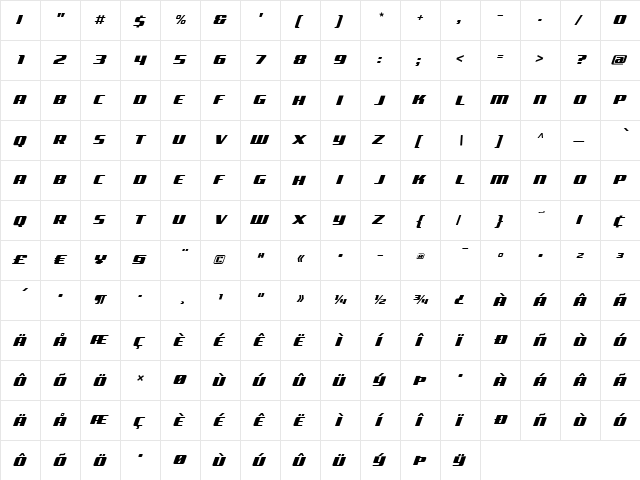
Global Medium
Design Context for Global Typeface
Global is a composed and adaptable typeface that performs quietly and consistently across a wide range of design contexts.